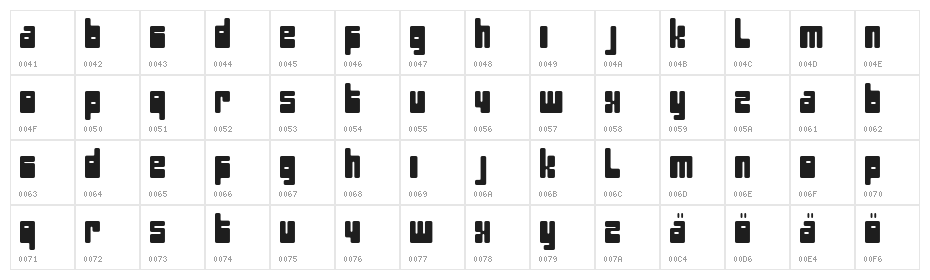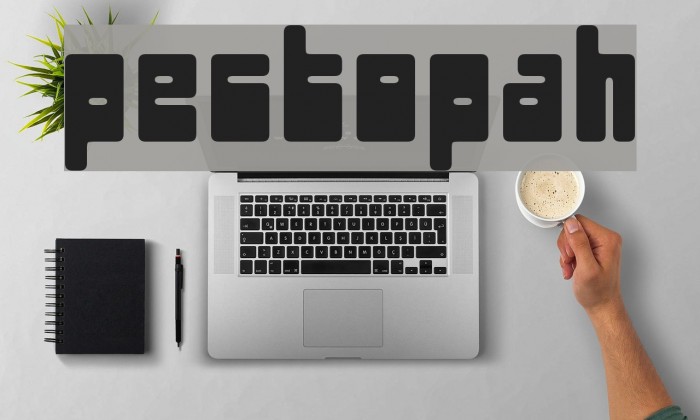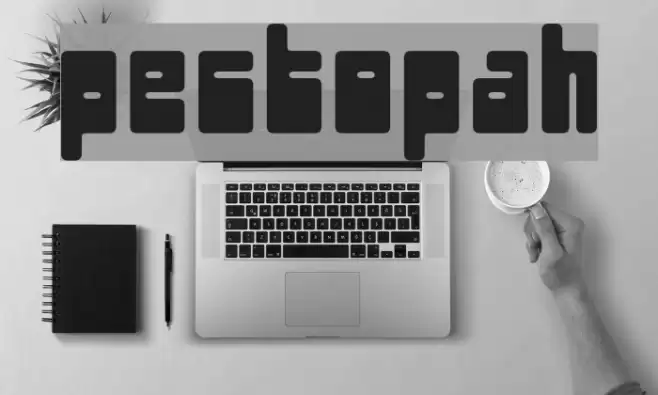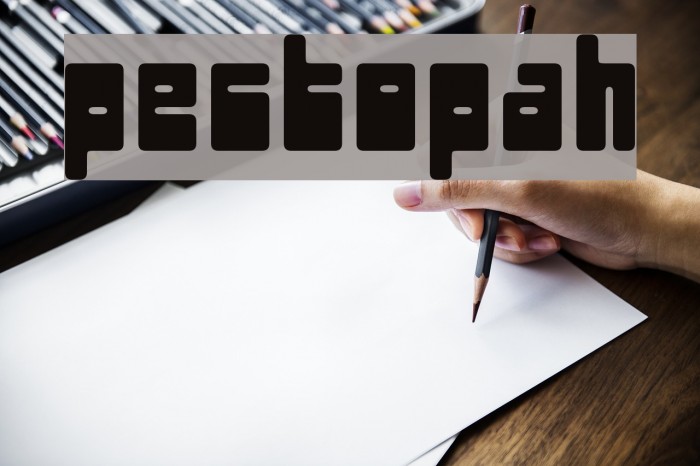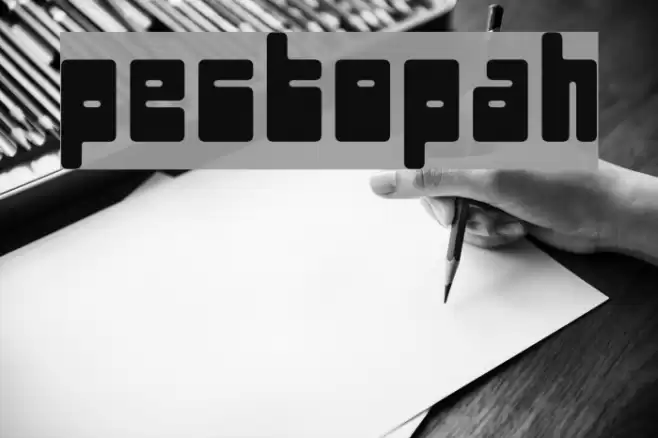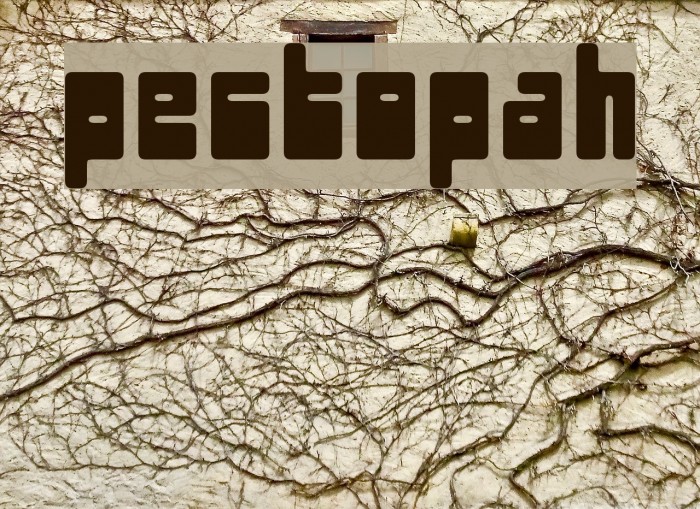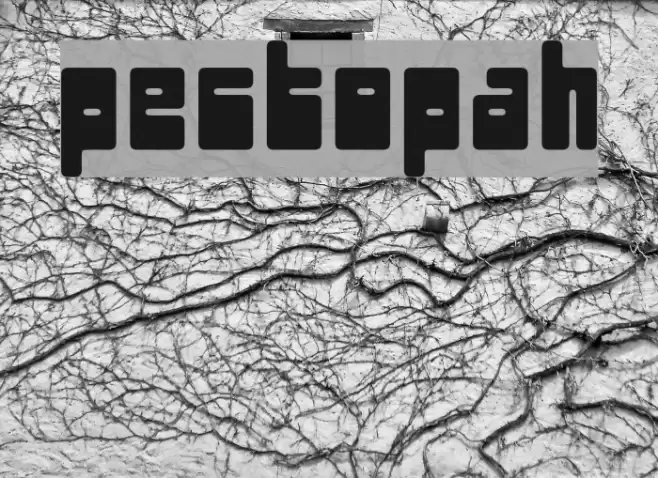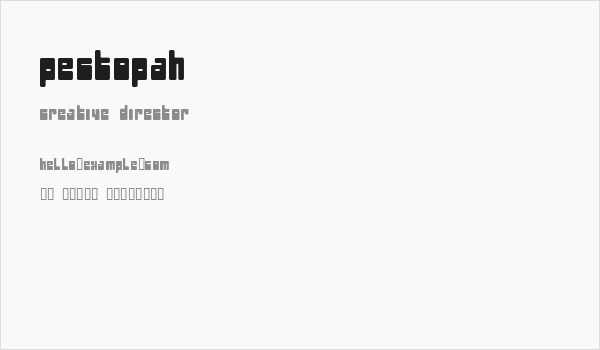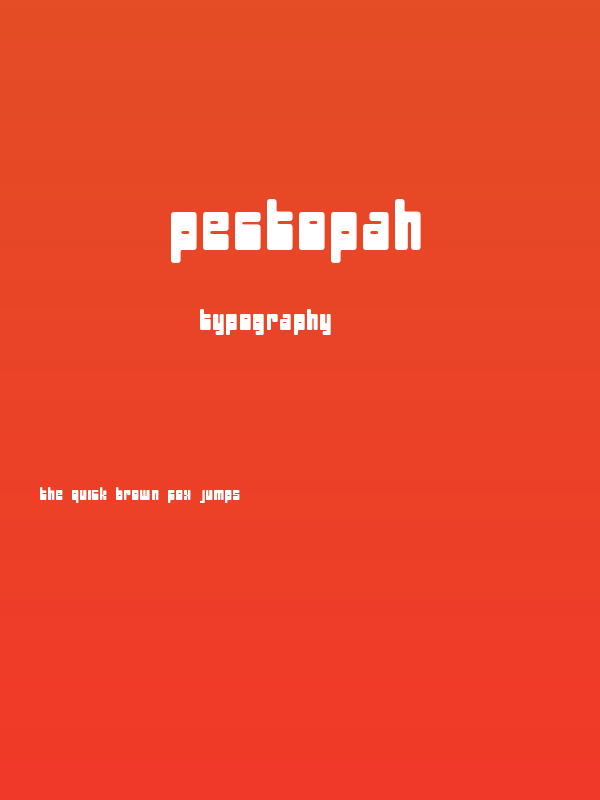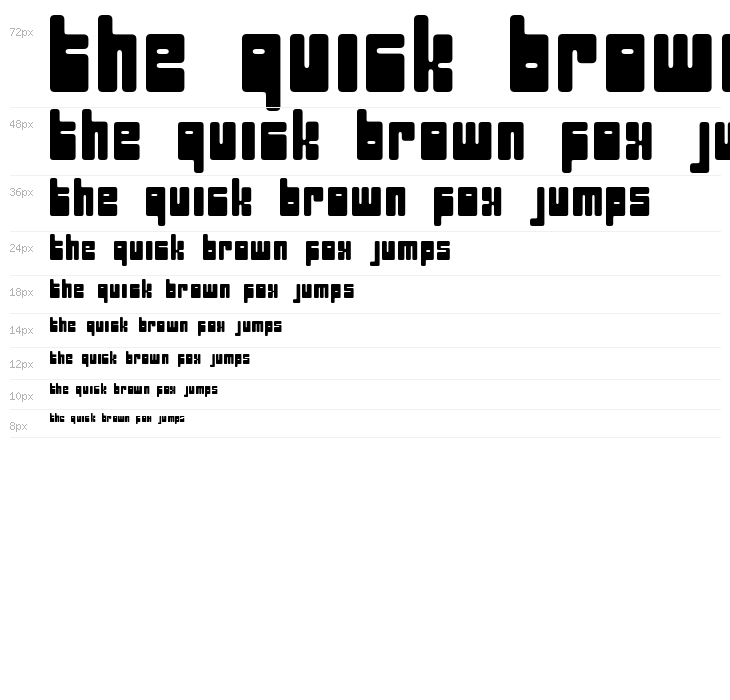
pectopah Font
pectopah Description
This font features a bold, geometric design with a distinctly modern and futuristic aesthetic. The characters are constructed with thick, uniform strokes and a blocky appearance, giving them a strong and impactful presence. The edges are rounded, softening the overall look and adding a touch of friendliness to the otherwise robust style. The uppercase and lowercase letters maintain a consistent height, contributing to a cohesive and uniform appearance. The numbers and special characters follow the same design principles, ensuring a harmonious look across all glyphs. This font is ideal for projects that require a bold statement and a contemporary feel.
| Proposed Projects | Ideal for branding, posters, video game graphics, and tech-related designs. |